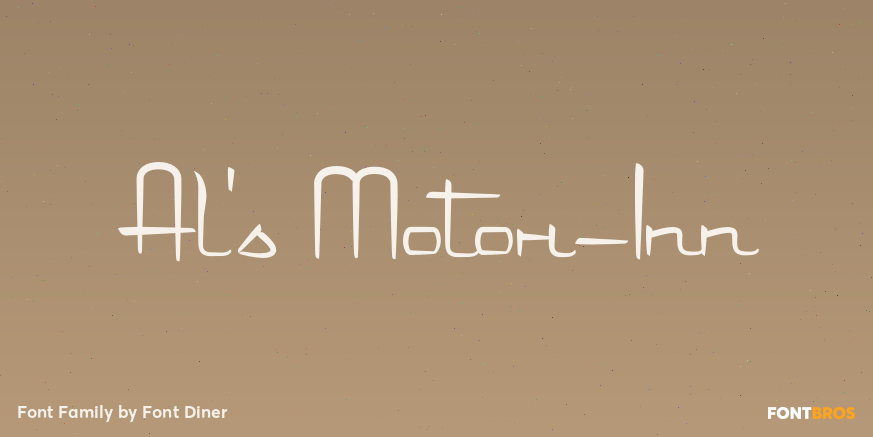
Take Exit 49 to Al\’s Motor-Inn, enjoy free color television, air conditioning and all the comforts of home with this fine 1940s style upright connecting script!